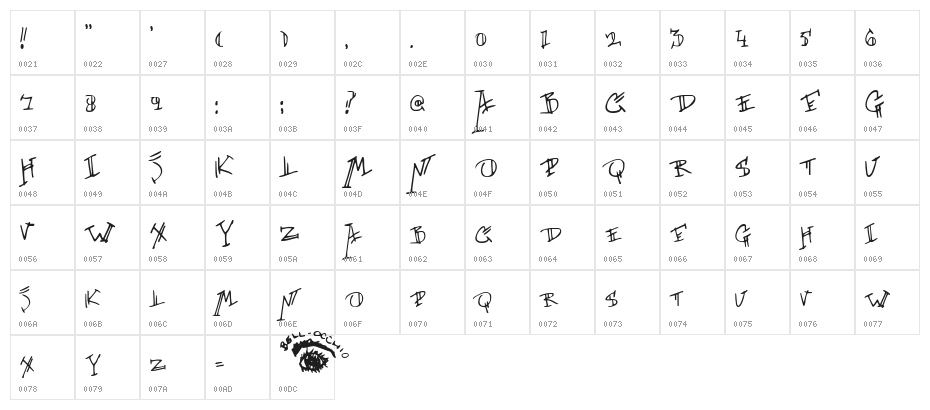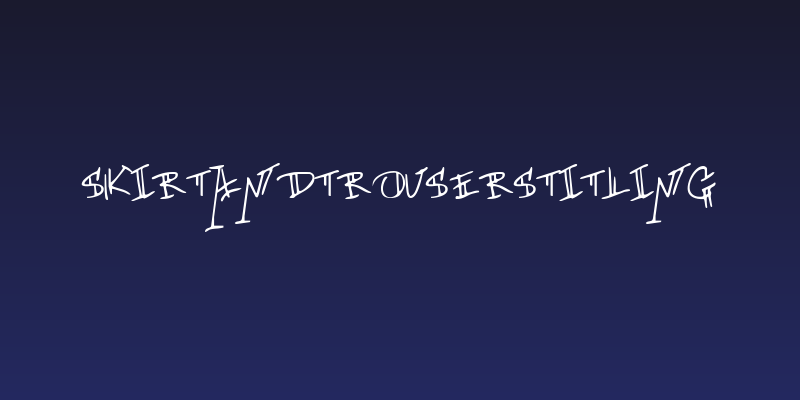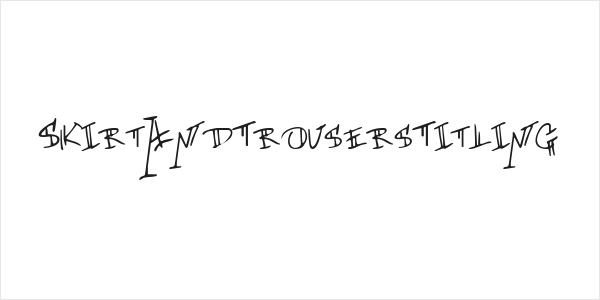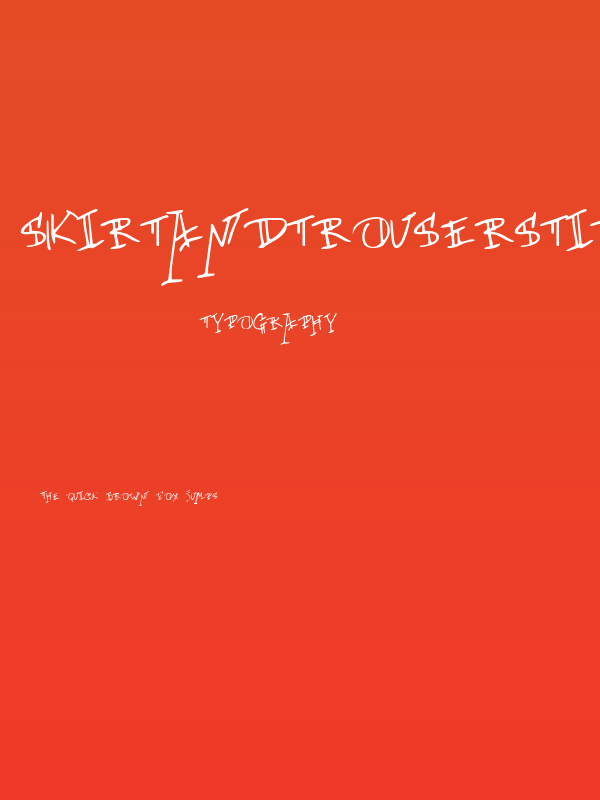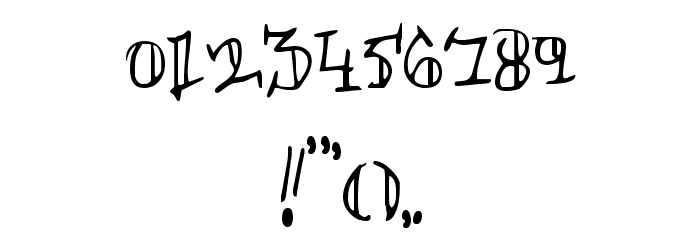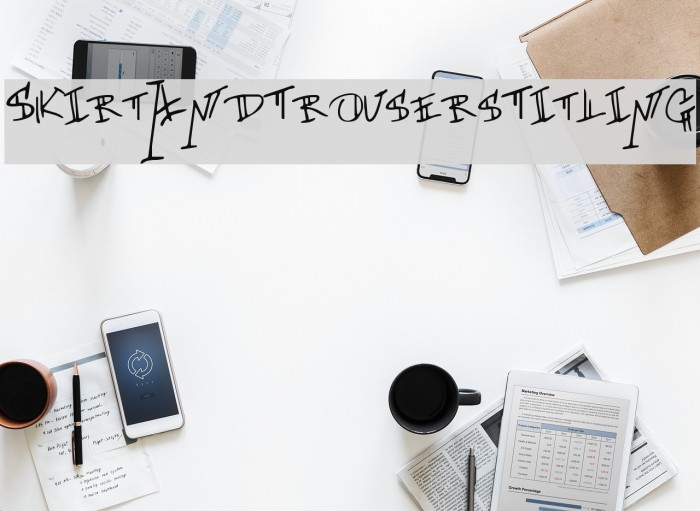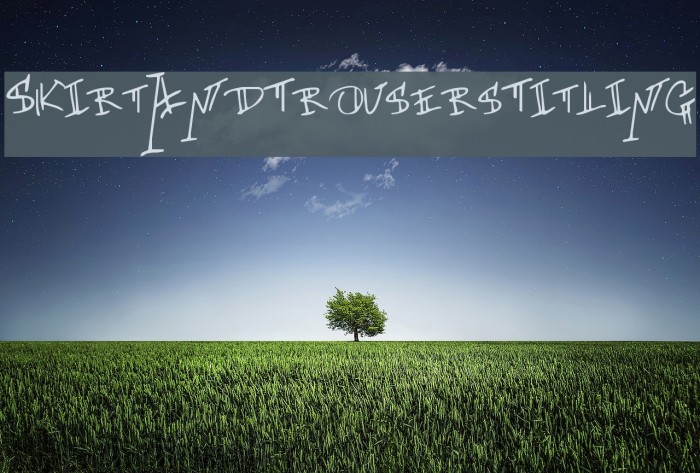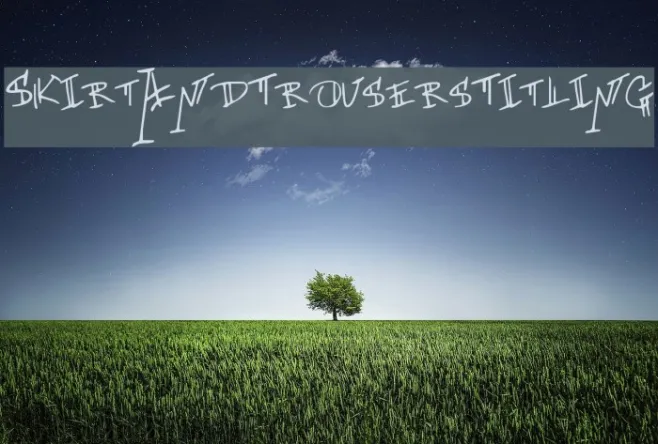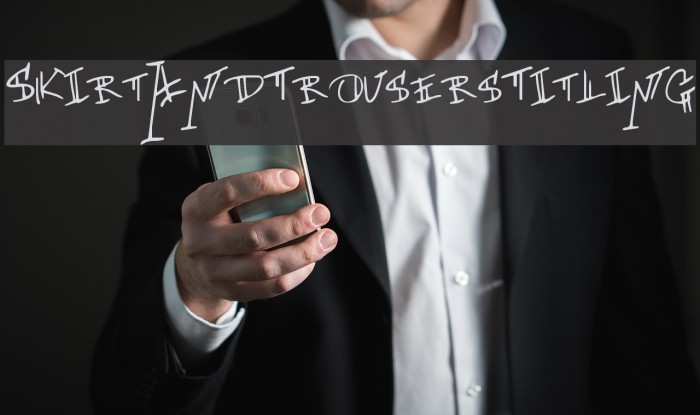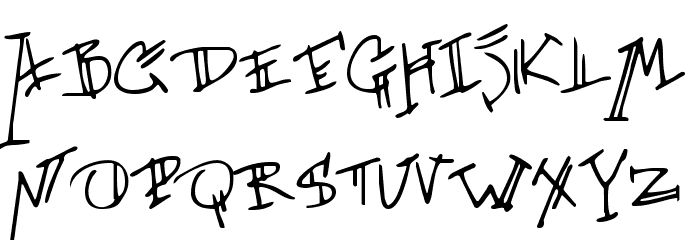
SkirtAndTrousersTitling Font
SkirtAndTrousersTitling Description
This font features a dynamic and edgy style, characterized by sharp angles and a hand-drawn appearance. The uppercase and lowercase letters exhibit a playful yet aggressive design, with strokes that vary in thickness, adding a sense of movement and energy. The numerals and special characters maintain this aesthetic, ensuring consistency across all glyphs. The font's unique flair makes it stand out, with each character having a slightly irregular form, enhancing its informal and artistic vibe.
| Use Case | Logos, Headlines, Posters |
| Proposed Projects | Ideal for projects requiring a bold, artistic touch such as album covers, posters, or branding for creative industries. |